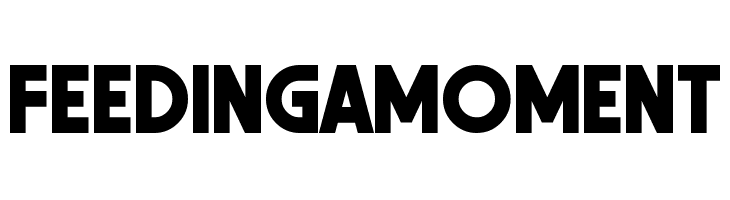
A clean, modern monospaced font with semi-bold weight, ideal for coding.
A monospaced, pixelated font ideal for coding and technical documentation.
A gritty, distressed font with a hand-drawn, urban style.
A playful, casual handwritten font with dynamic strokes and an informal style.
A bold, extended font with a modern and clean design, perfect for impactful headlines and branding.
A bold, decorative font with a distressed, vintage appearance.
A bold, decorative font with a distressed, vintage appearance and whimsical detailing.
A pixelated, digital-inspired font with a modern, dynamic slant.
A bold, geometric font with clean lines and uniform stroke widths, perfect for impactful statements.
A bold, rounded font with a modern and urban style.